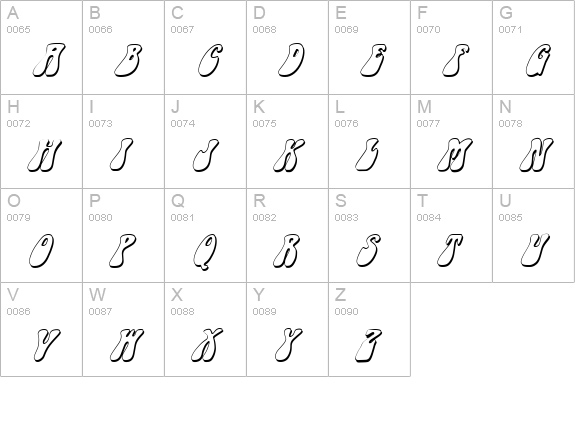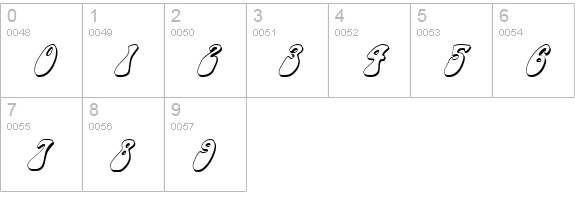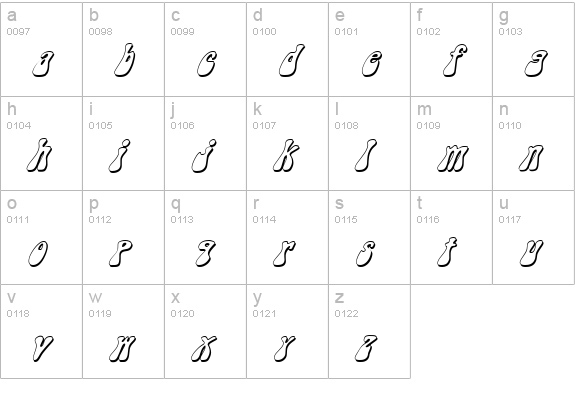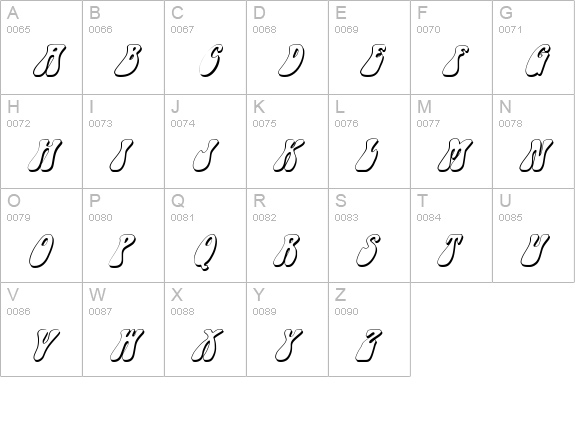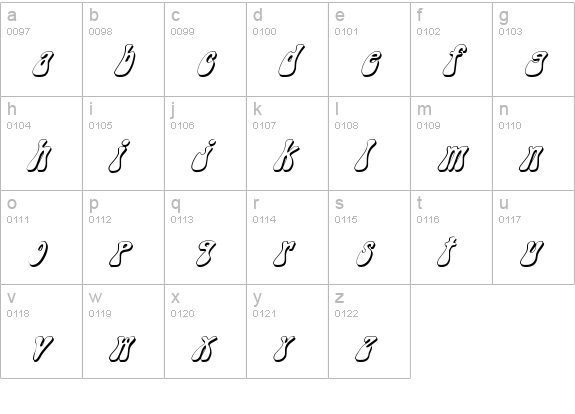
FZ JAZZY 14 3D ITALIC Font Details
FZ JAZZY 14 3D ITALIC is a distinctive, italic variant in the FZ typeface family \xE2\x80\x94 well suited to design and typography projects.
FZ JAZZY 14 3D ITALIC font is a stylish and modern typeface that exudes sophistication and creativity. Its unique 3D effect adds depth and dimension to any design project, making it stand out from the crowd. The italicized characters lend a touch of elegance and flair, perfect for adding a touch of class to your work. Best of all, FZ JAZZY 14 3D ITALIC font is available for free download at FontsMarket.com. This means you can easily access this eye-catching font without any cost, making it a valuable addition to your font collection. Whether you're designing a poster, logo, website, or any other creative project, this font is sure to make a lasting impression. Download FZ JAZZY 14 3D ITALIC font today and elevate your designs with its unique charm and style.